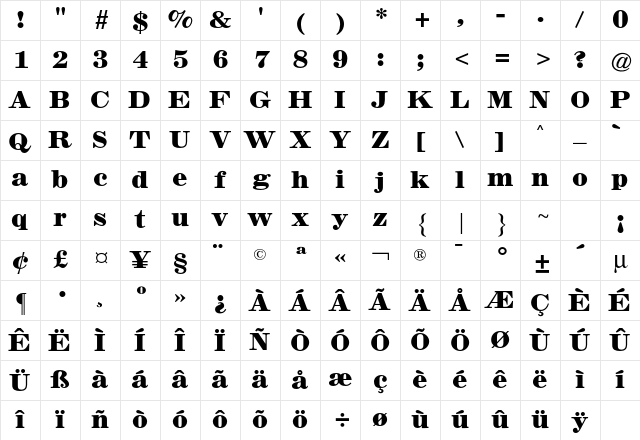
Complete Claire News CG Bold Regular glyph index. Displaying only characters natively supported by Claire News CG Bold Regular font.
Claire News CG Bold is a composed and adaptable typeface that performs quietly and consistently across a wide range of design contexts. Its bold stroke weight gives it real presence on the page.